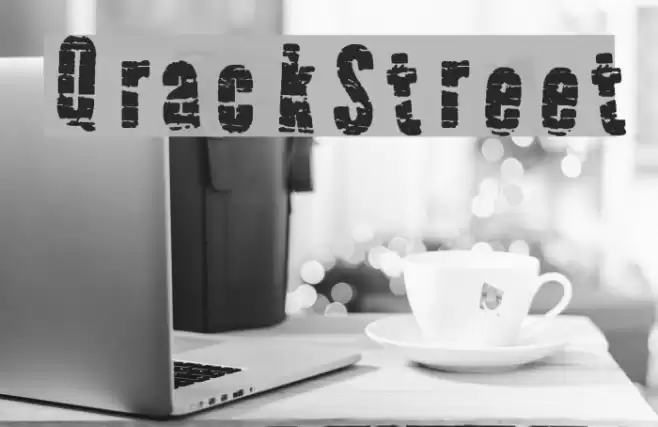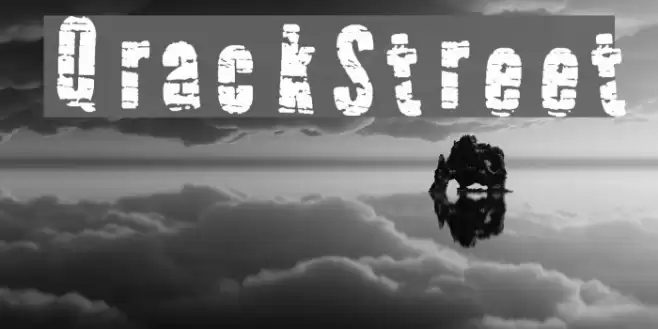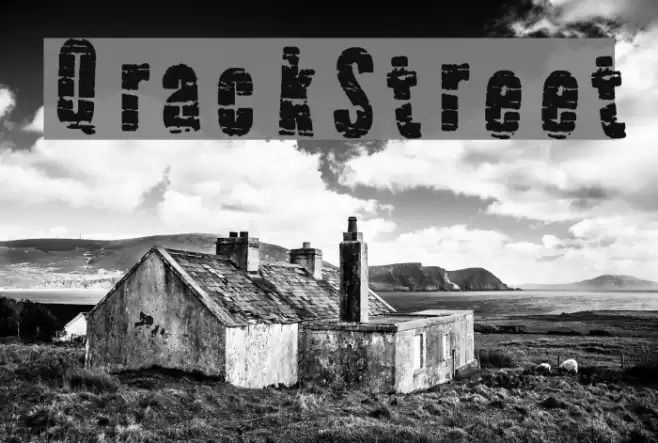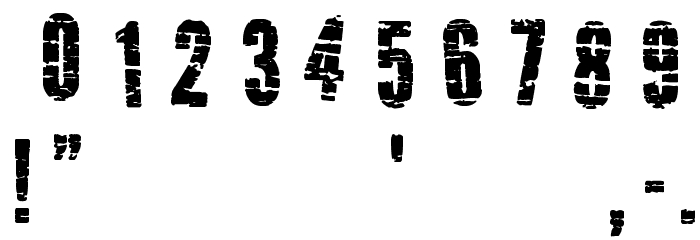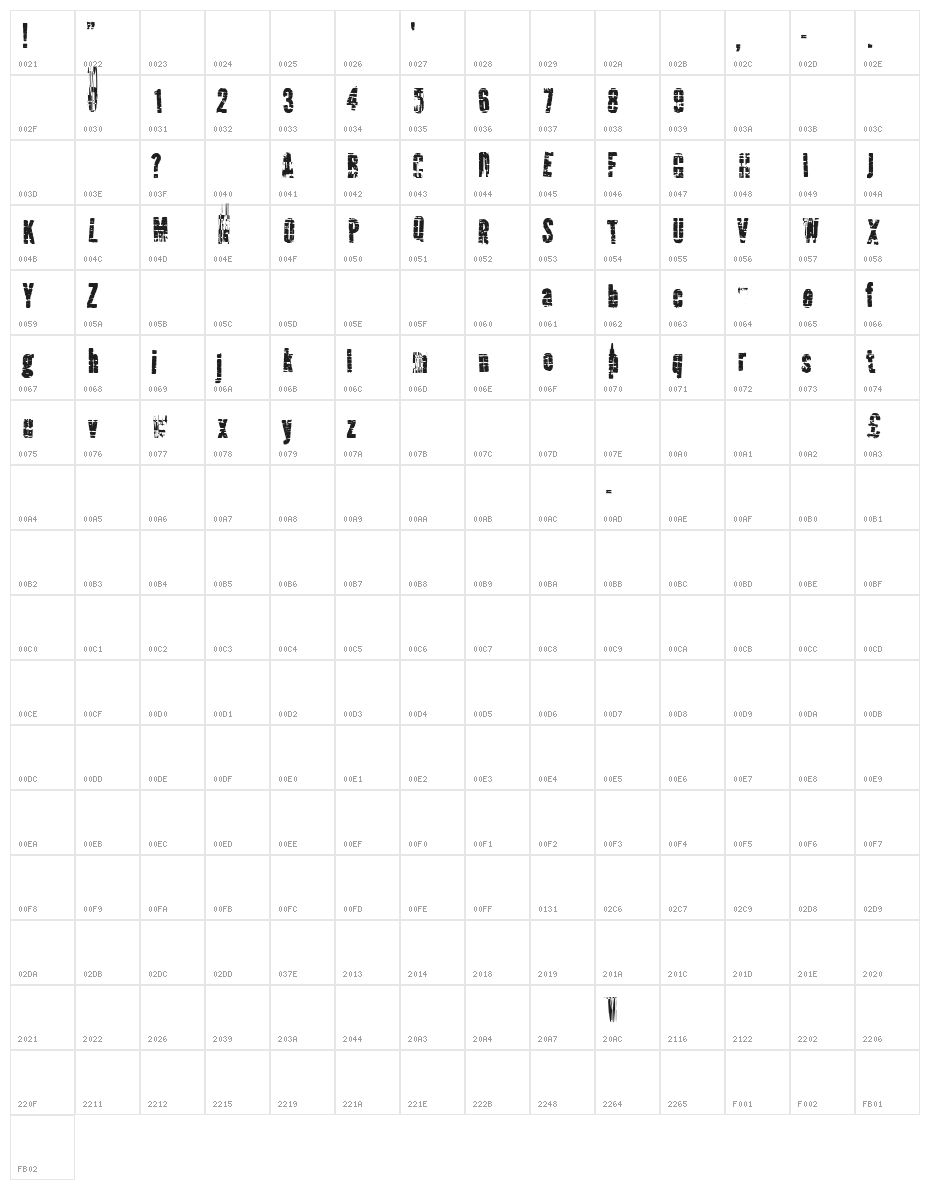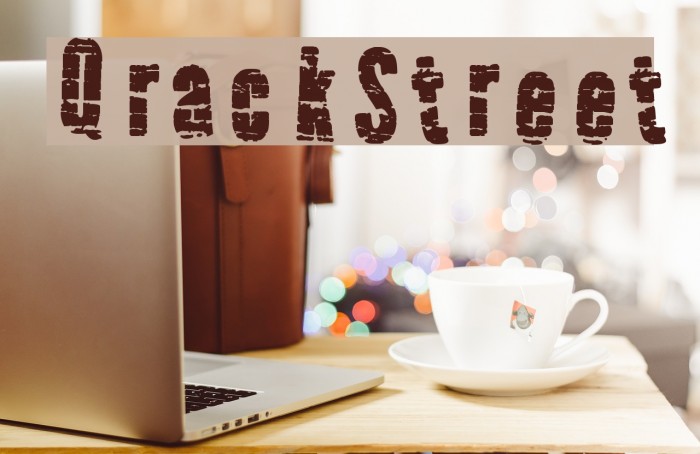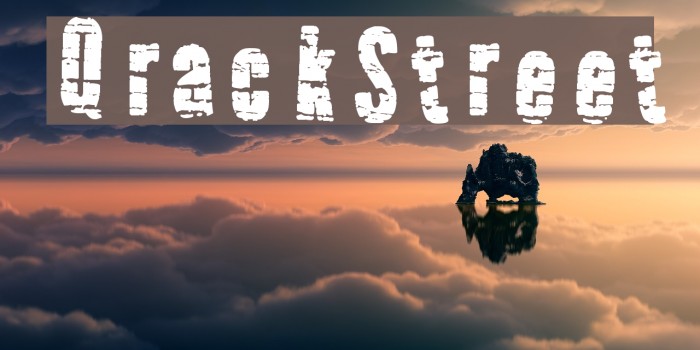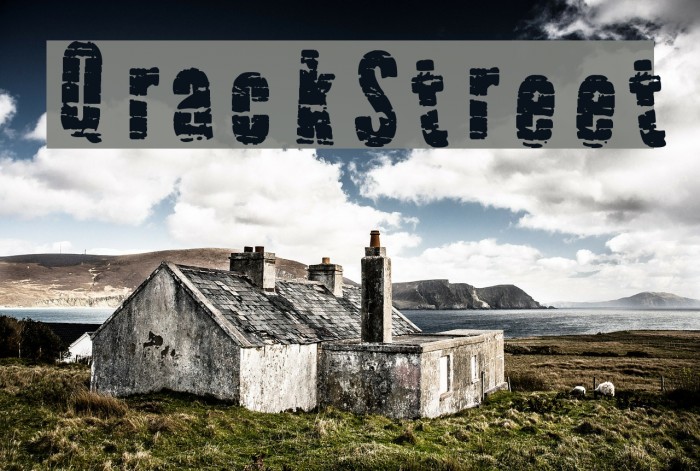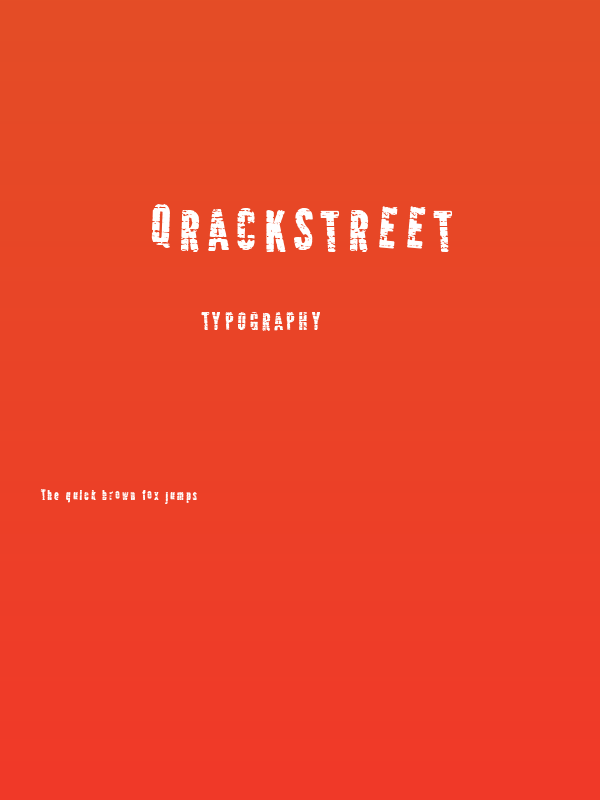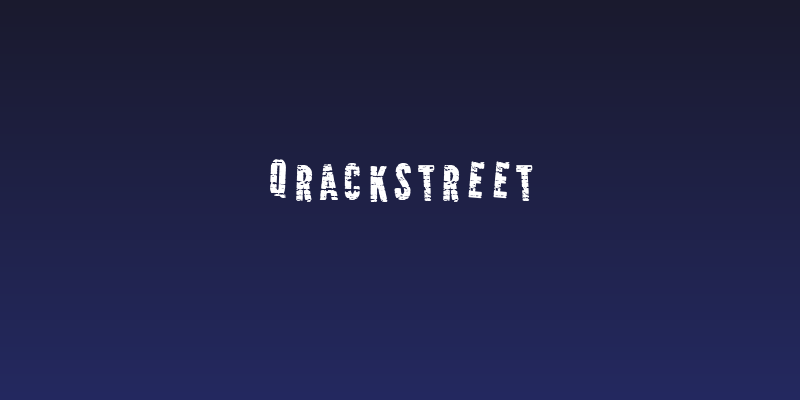
QrackStreet Font
QrackStreet Description
This font features a distressed, grunge style with a bold and impactful appearance. Each character appears as if it has been weathered or eroded, giving it a rugged and urban feel. The uppercase and lowercase letters maintain a consistent height, while the numbers and special characters follow the same distressed aesthetic. The texture adds a dynamic and edgy look, making it suitable for designs that require a raw and gritty vibe. The font's unique style captures attention and conveys a sense of rebellion and nonconformity.
A bold, distressed font with a grunge, urban aesthetic from Distorted Eroded fonts.
- Proposed Projects: Ideal for music album covers, streetwear branding, posters, and urban-themed designs.
- Overall Style: Grunge, Urban, Distressed